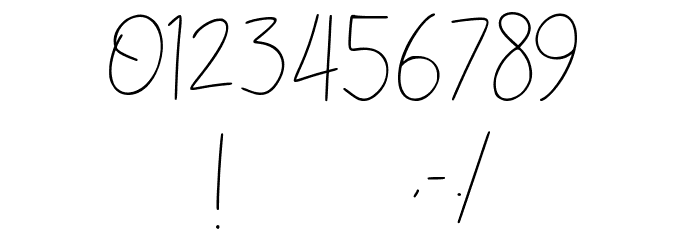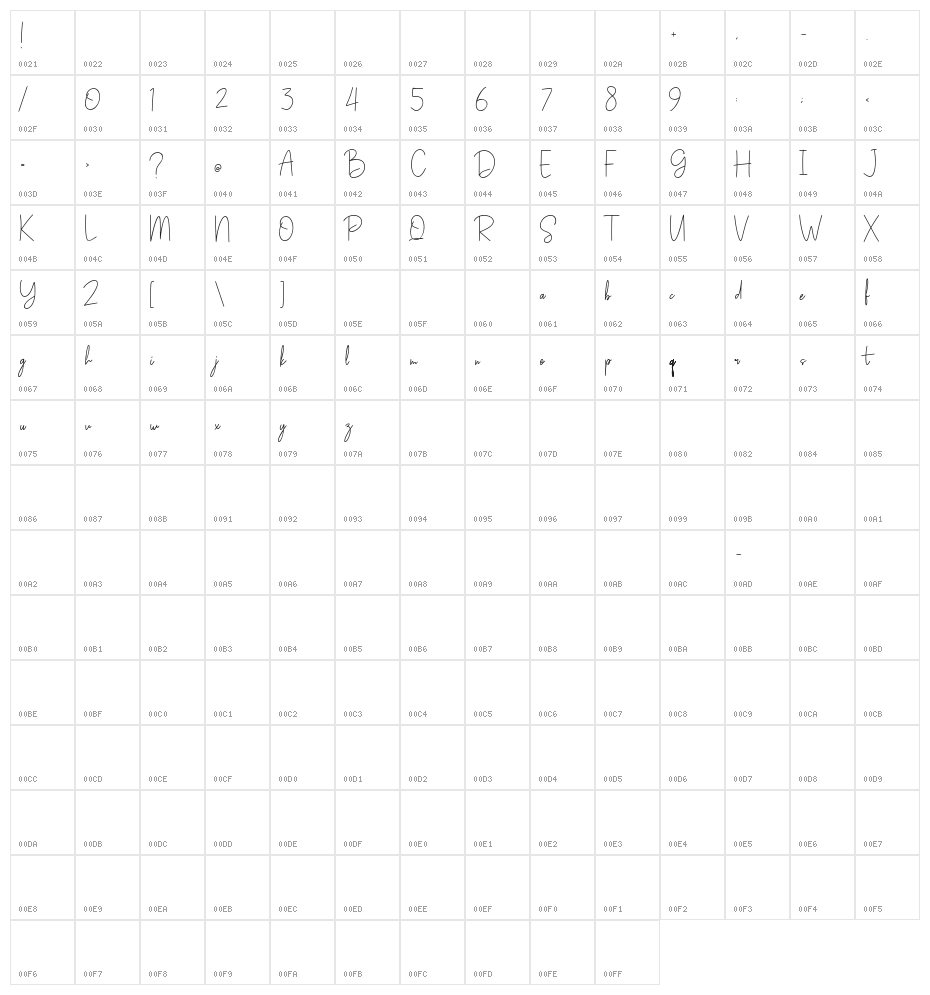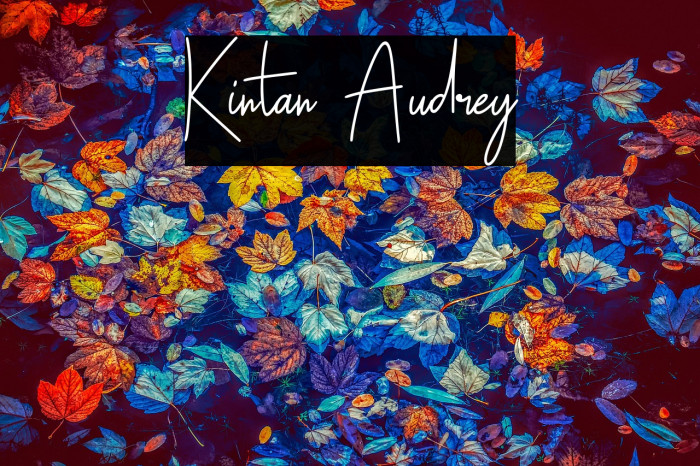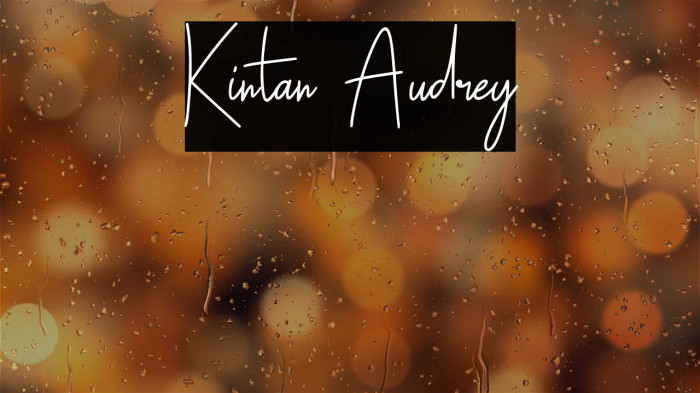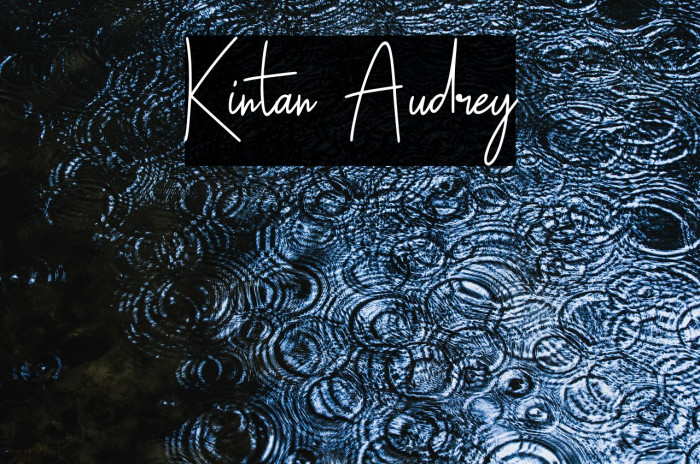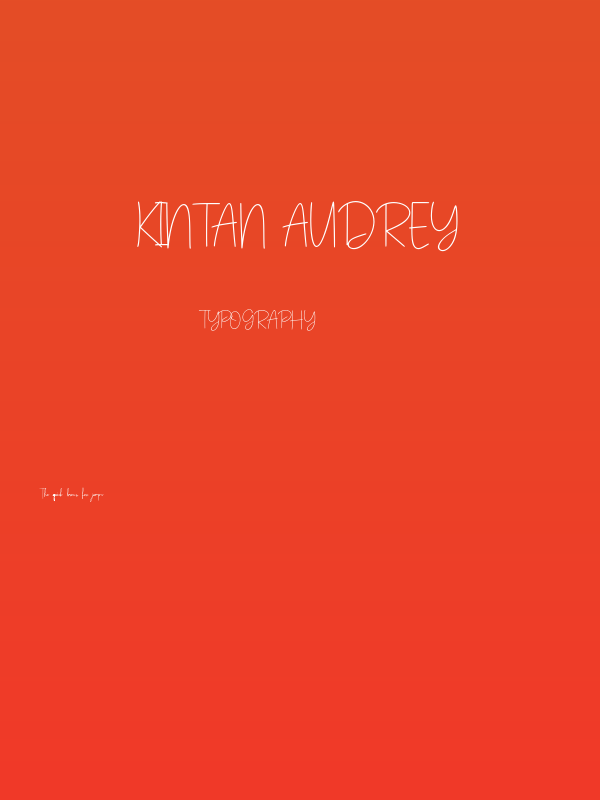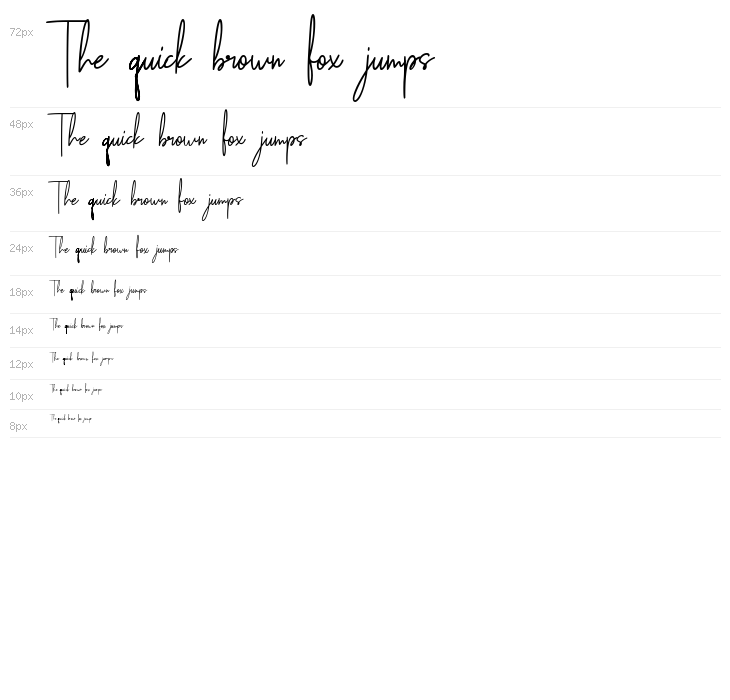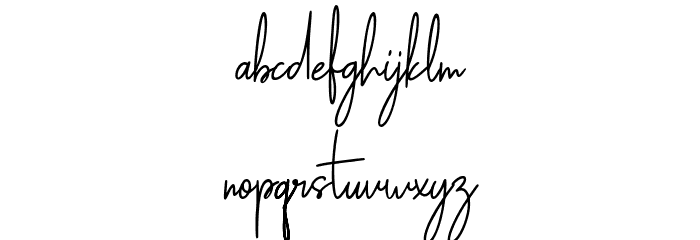
Kintan Audrey Font
Kintan Audrey Description
This font features a playful and whimsical handwritten style, characterized by its tall, narrow letterforms and slightly irregular strokes. The uppercase letters are bold and prominent, while the lowercase letters maintain a consistent flow, adding a touch of elegance. The numerals are clear and easily readable, complementing the overall aesthetic. Special characters are integrated seamlessly, enhancing the font's versatility. Its unique charm makes it suitable for creative projects that require a personal touch.